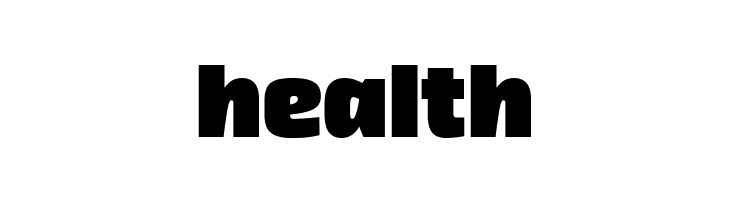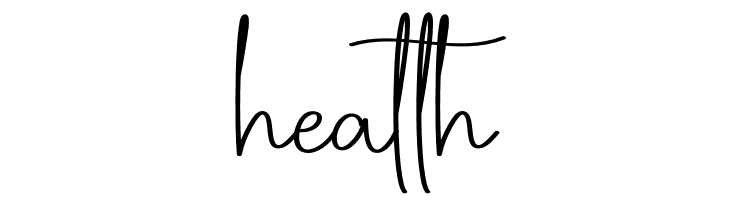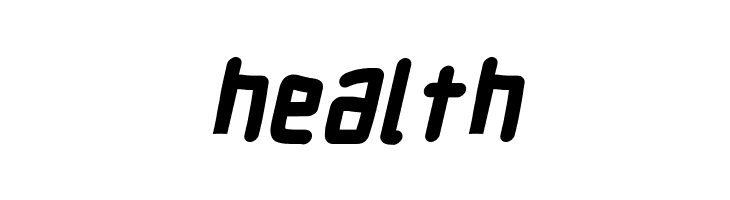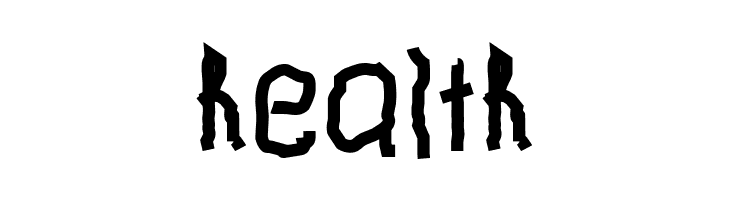
( Evgeniy Litvin )
A gothic-inspired serif font with sharp, angular serifs and a strong vertical emphasis.
A sleek, modern italic font with consistent stroke width and dynamic appearance.
A modern sans-serif font with a clean, slightly condensed style.
A modern, slanted font with clean lines and a dynamic appearance.
A modern, clean sans-serif font with consistent stroke width and excellent readability.
A bold, italic, hollow font with a modern, futuristic style.
( Fonts by Daniel Midgley )
A dynamic script font with flowing, cursive letterforms and varying stroke thickness.
A modern, oblique font with consistent stroke thickness and a sleek, dynamic appearance.
A bold, dynamic font with thick strokes and sharp angles, perfect for impactful designs.
( Fonts by www.stimuleyefonts.com )
A bold, playful font with thick, rounded strokes and a whimsical style.
A bold, playful font with thick, rounded strokes and a vintage charm.
( Fonts by Dennis Ludlow - Sharkshock Productions )
A bold, playful font with thick strokes and whimsical curves.
( Fonts by Antonio Bucu - AdamAnt Designs )
A bold, high-contrast font with thick, block-like characters.
A bold, playful handwritten font with thick, rounded strokes.
A bold, playful font with thick, rounded characters and a whimsical style.
A bold, playful font with thick strokes and rounded edges.
A bold, playful font with thick, rounded characters and a whimsical style.
( Fonts by Levi Halmos )
A bold, modern font with thick strokes and unique character shapes.
A playful, handwritten-style font with consistent stroke thickness and a casual feel.